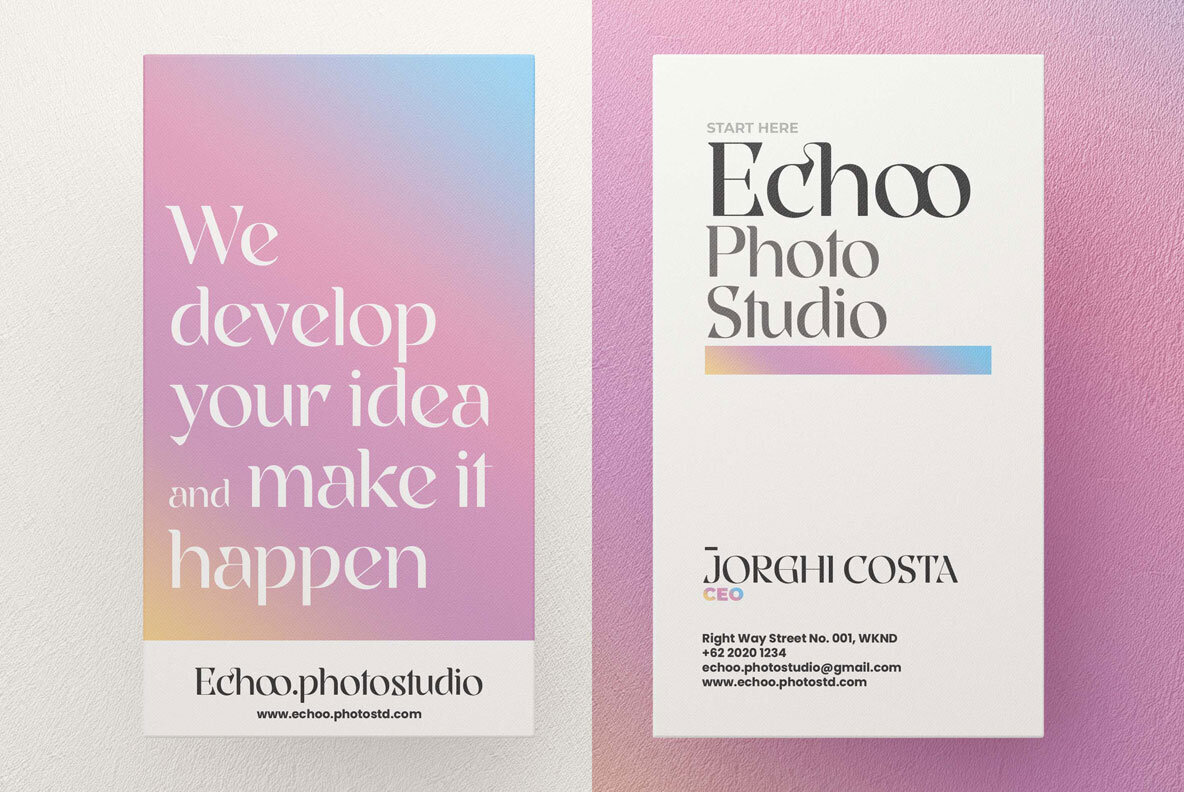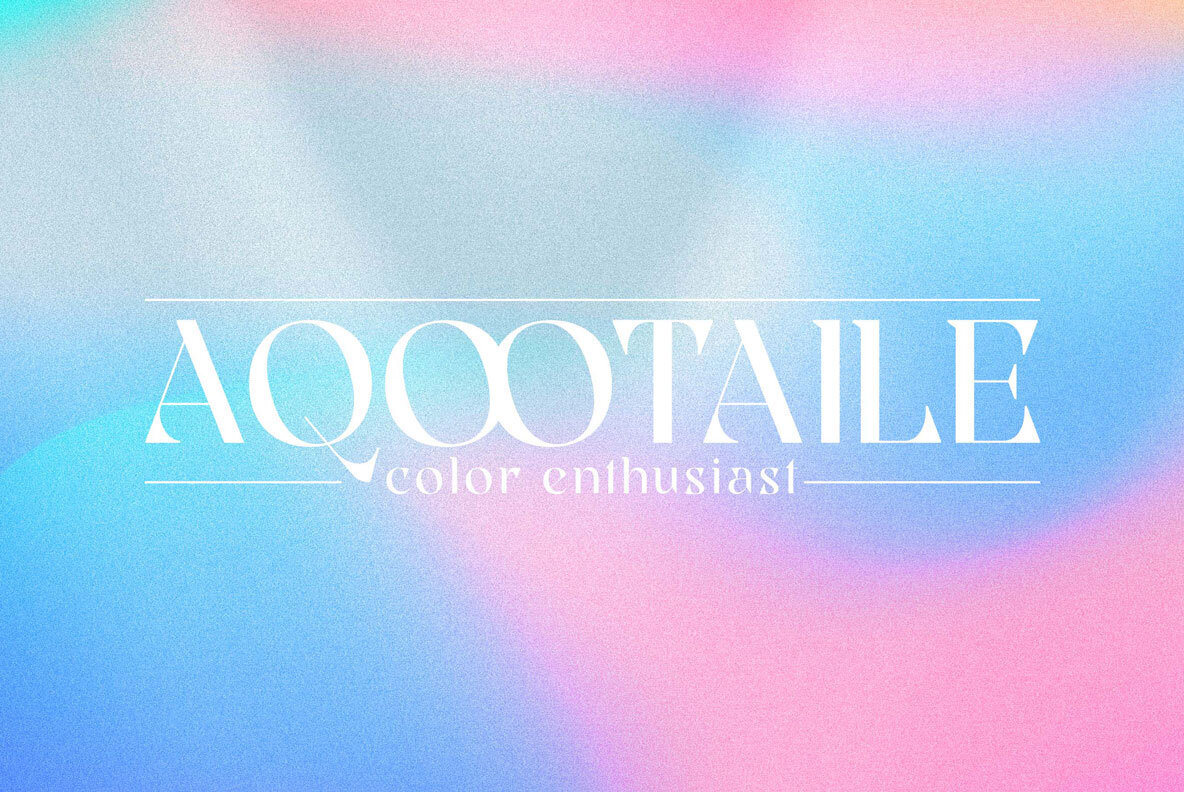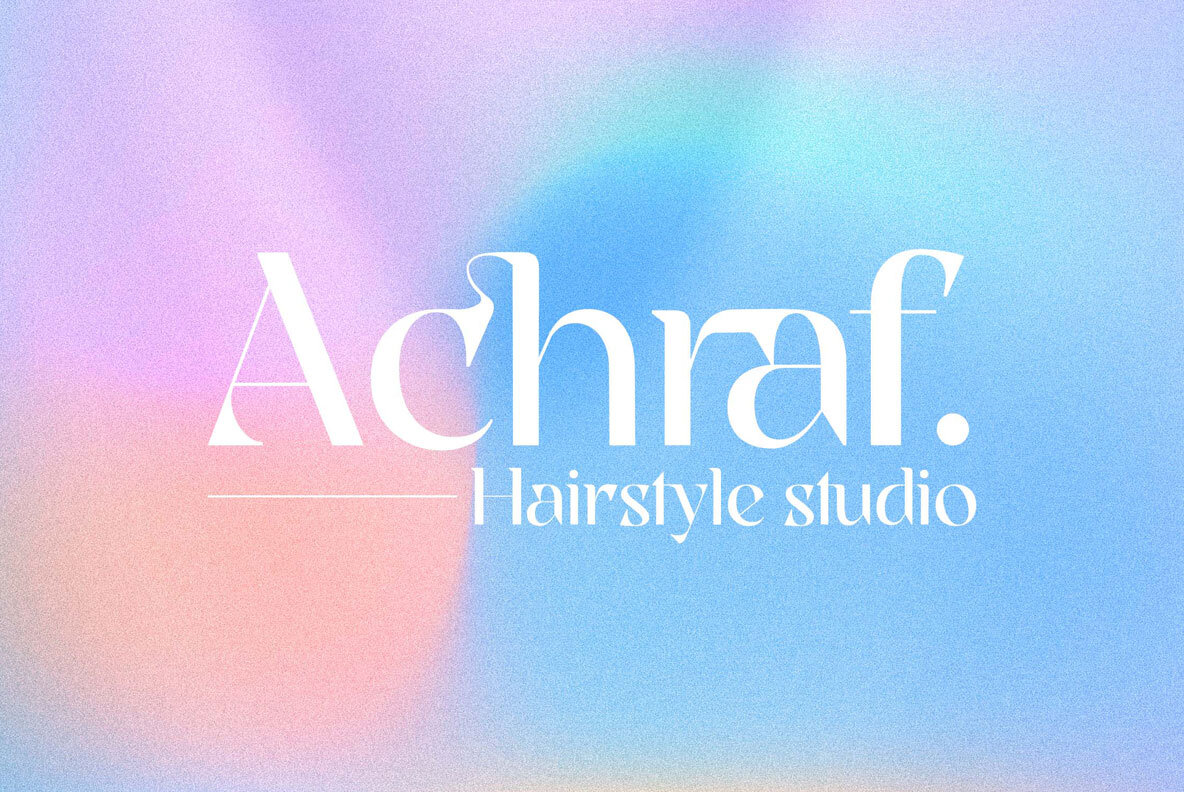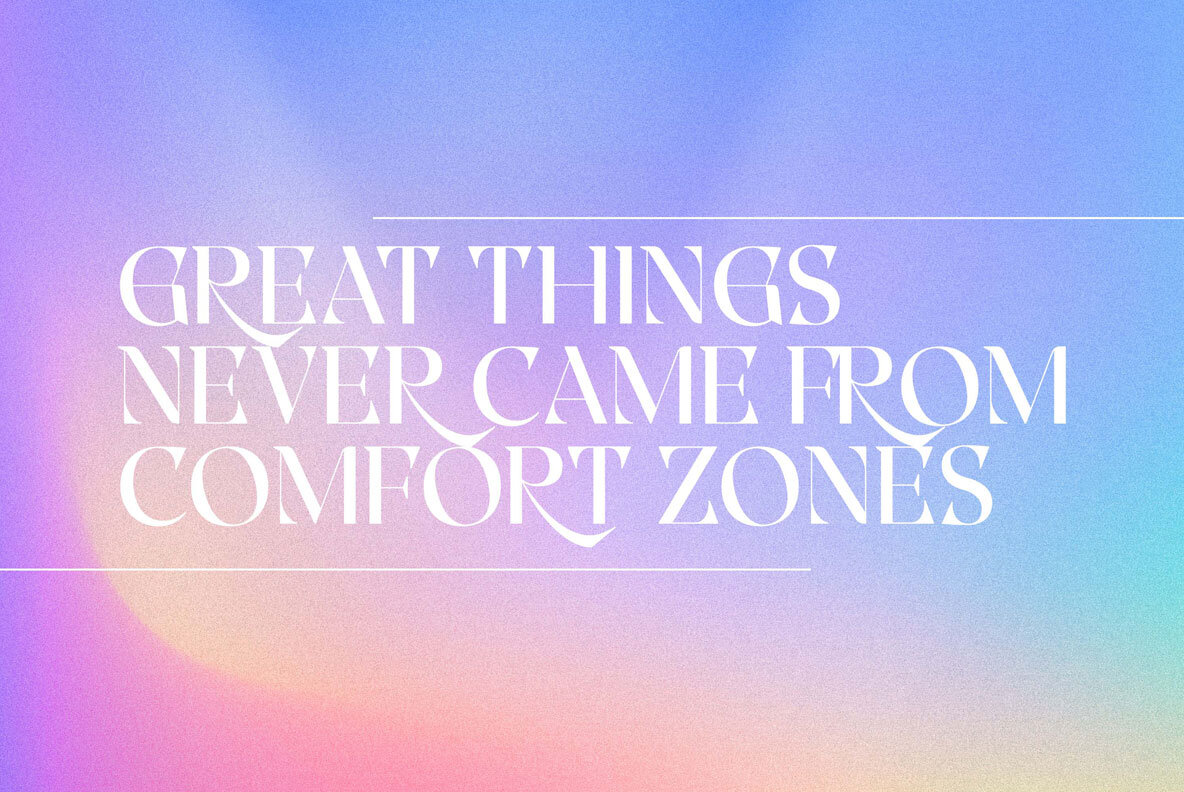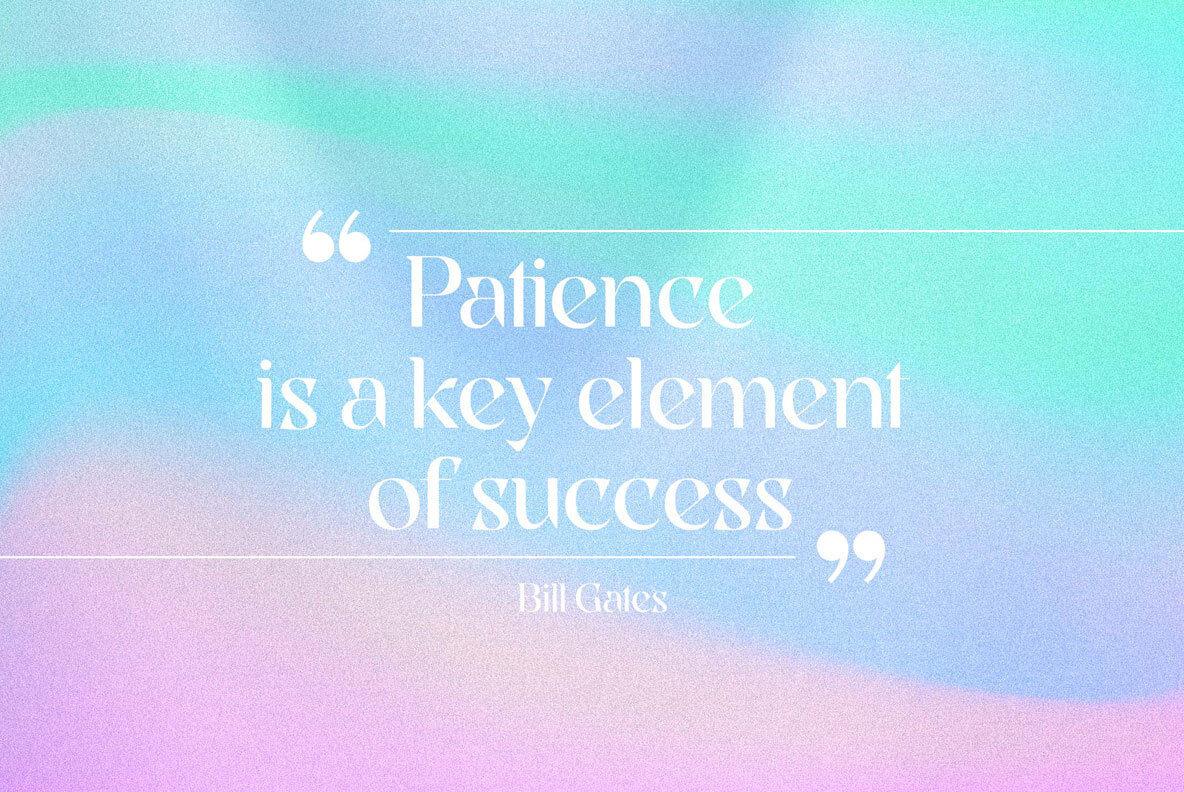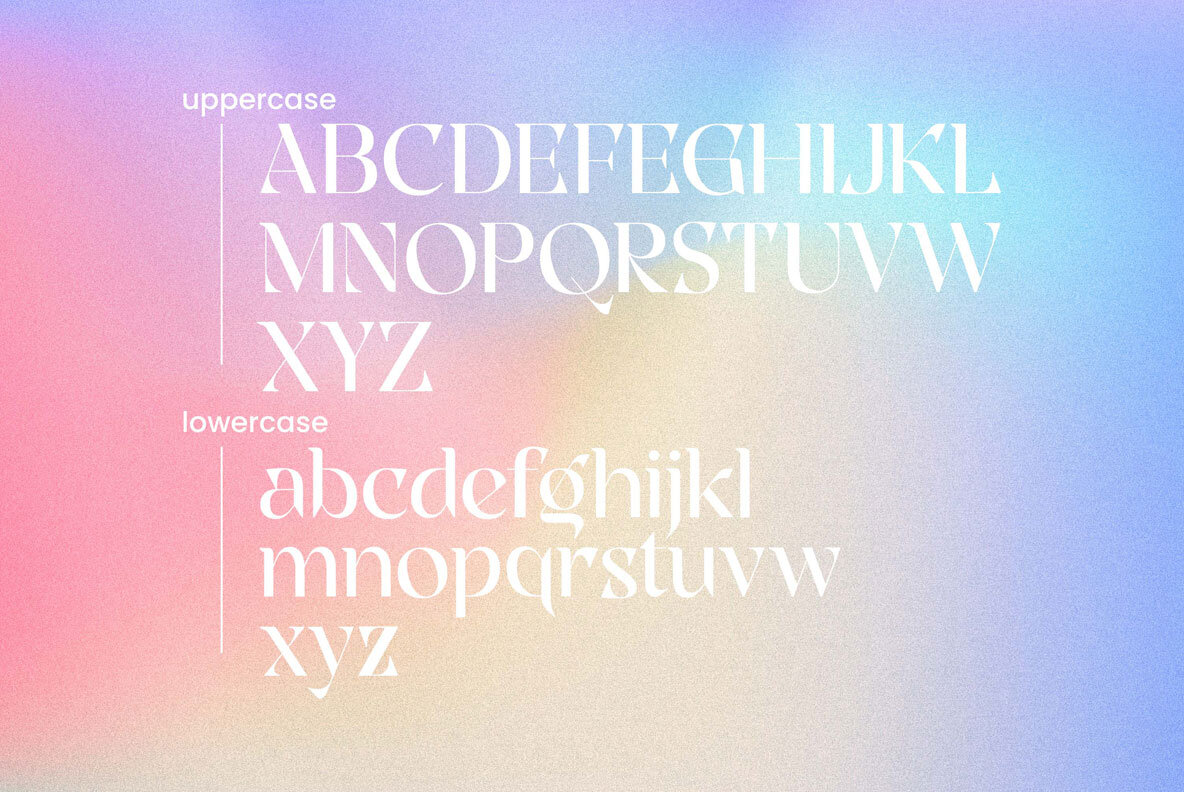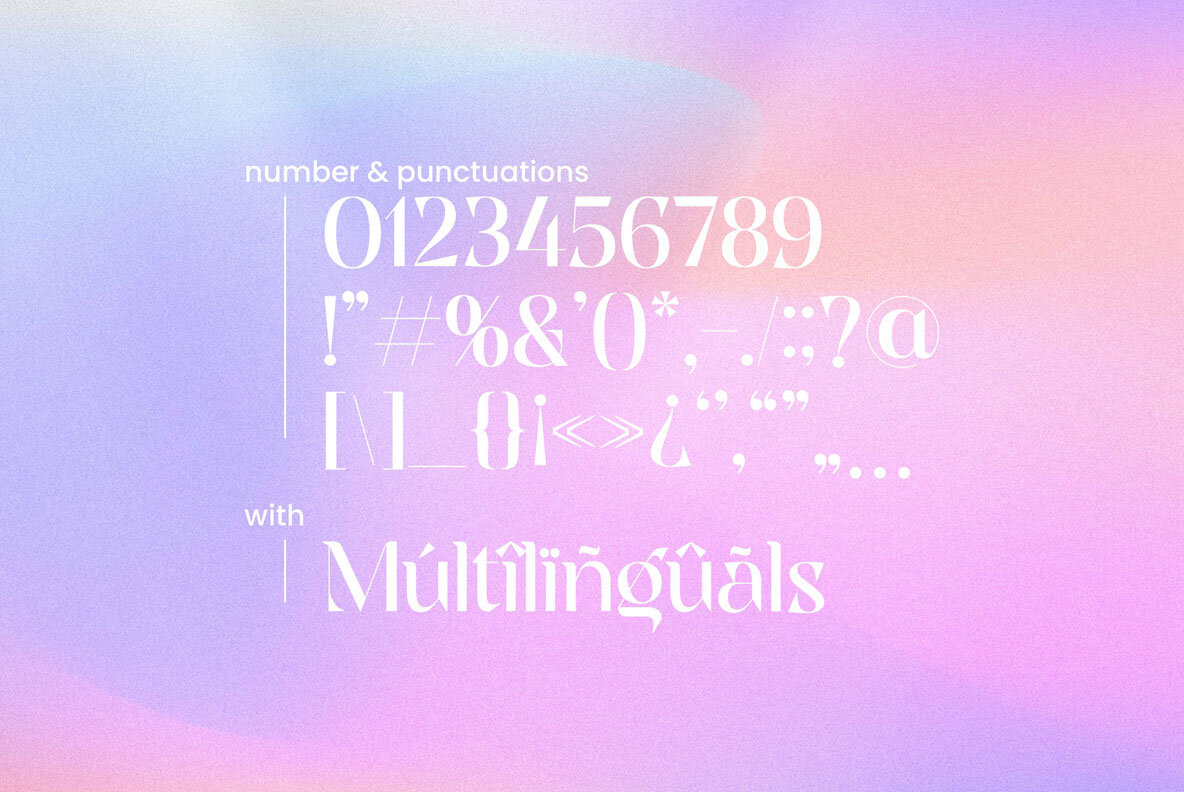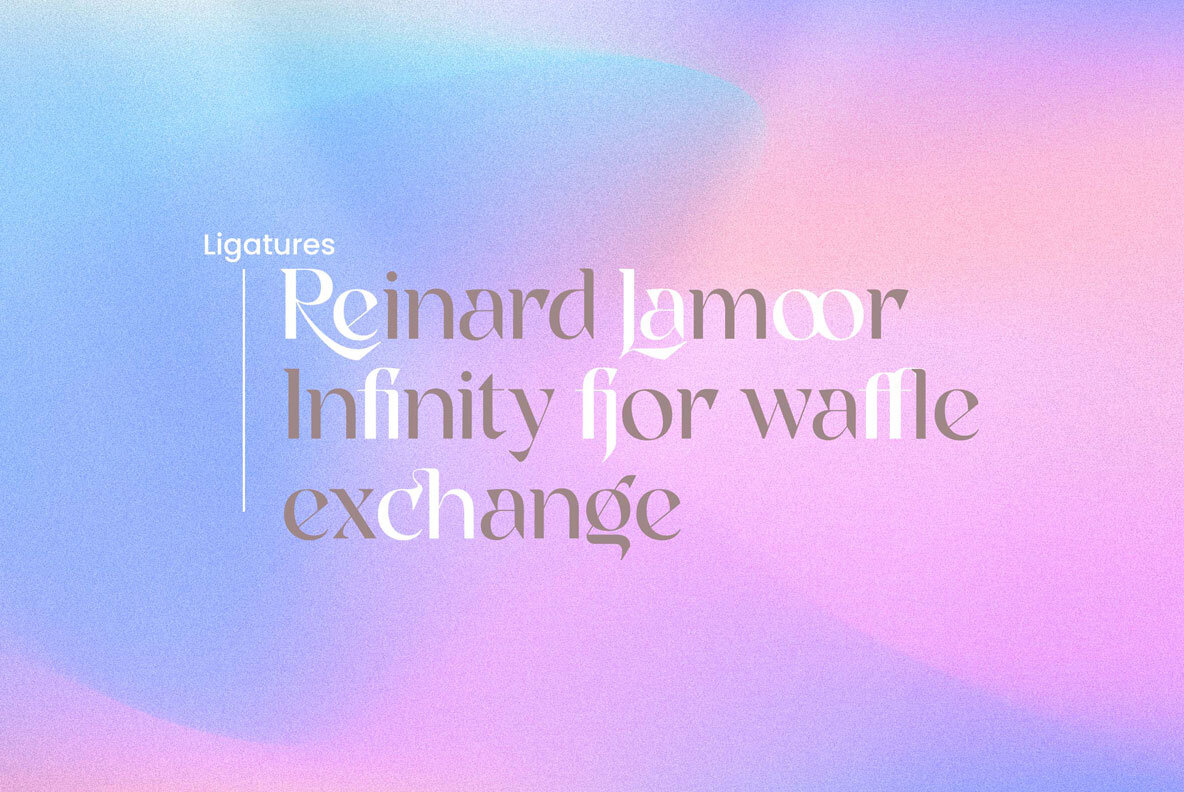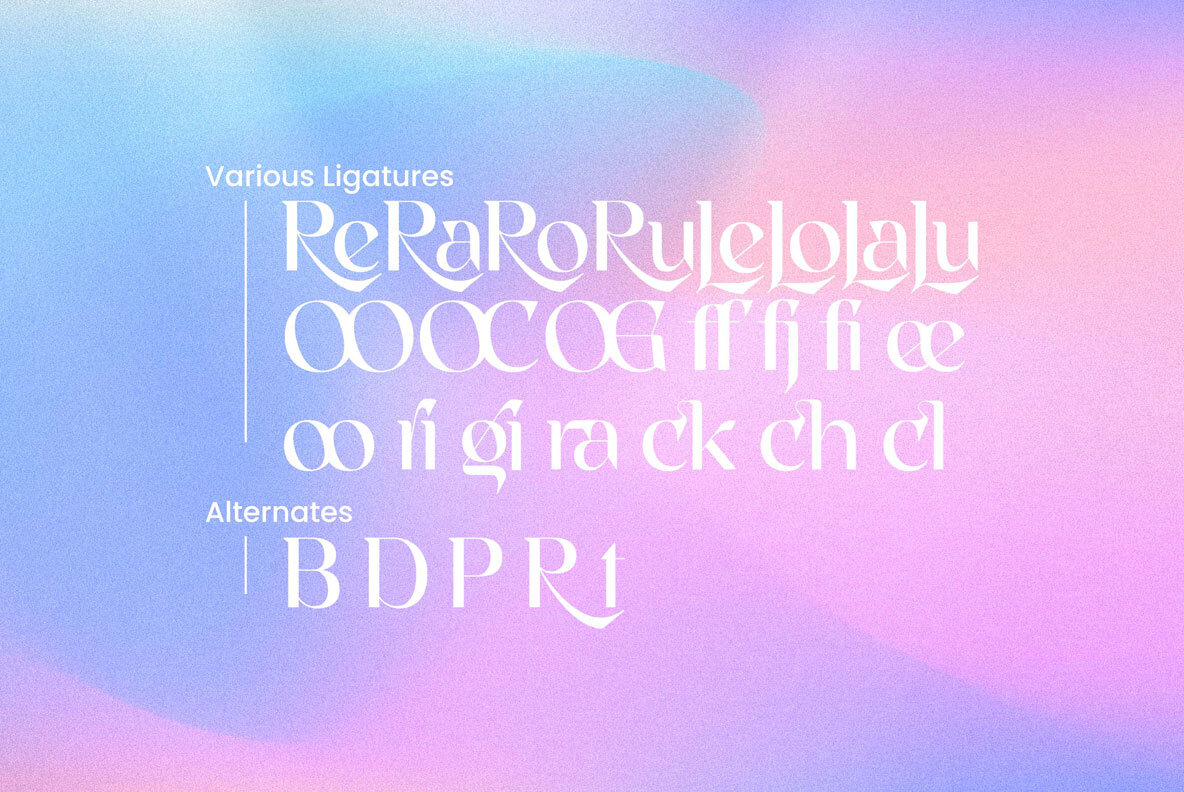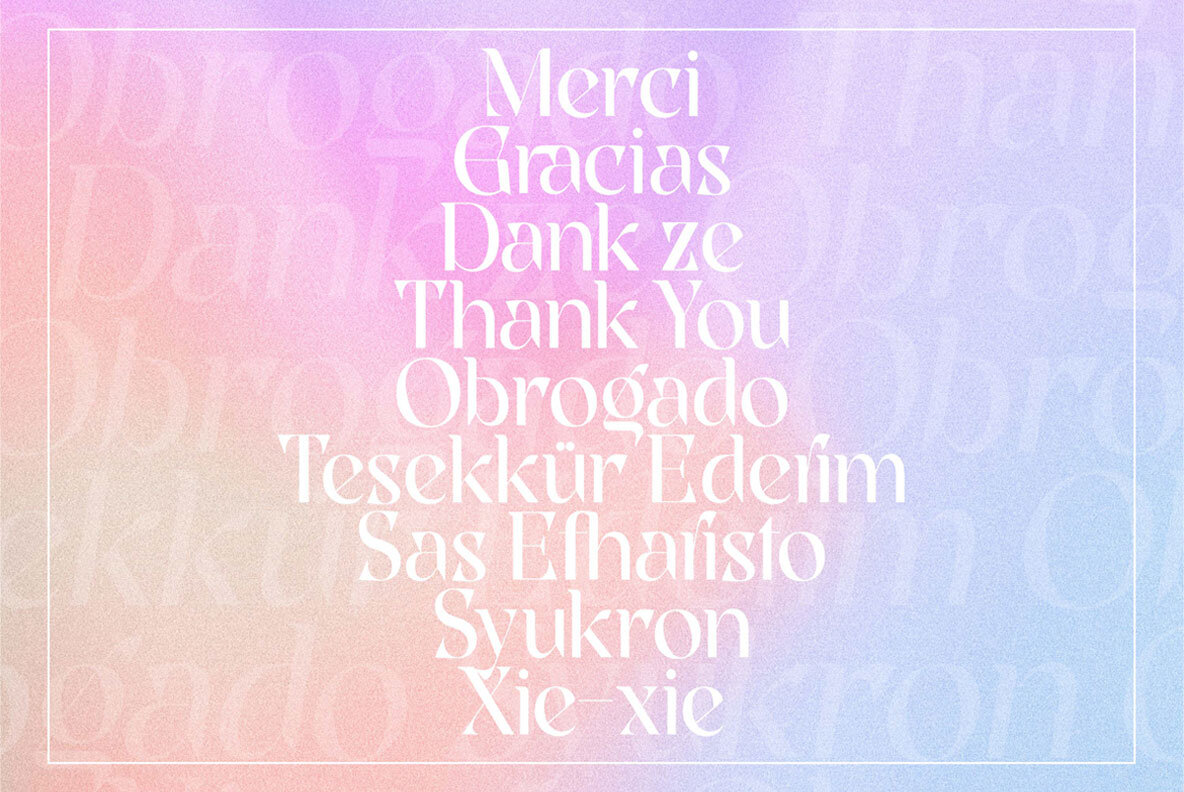
Rogie Font
Rogie Regular
Rogie offers a unique take on the traditional serif font by introducing elegantly linked ligatures that add a distinctive twist to word-mark logos and branding projects. This typeface provides creative flexibility with 22 ligatures and 5 alternates, designed to inject sophistication into your designs. The ligature feature is optional, allowing for standard typography when needed. Rogie is perfect for a range of applications, including impactful headlines, sophisticated branding, and digital design endeavors.Rogie: Modern Display Serif with Elegant Ligatures